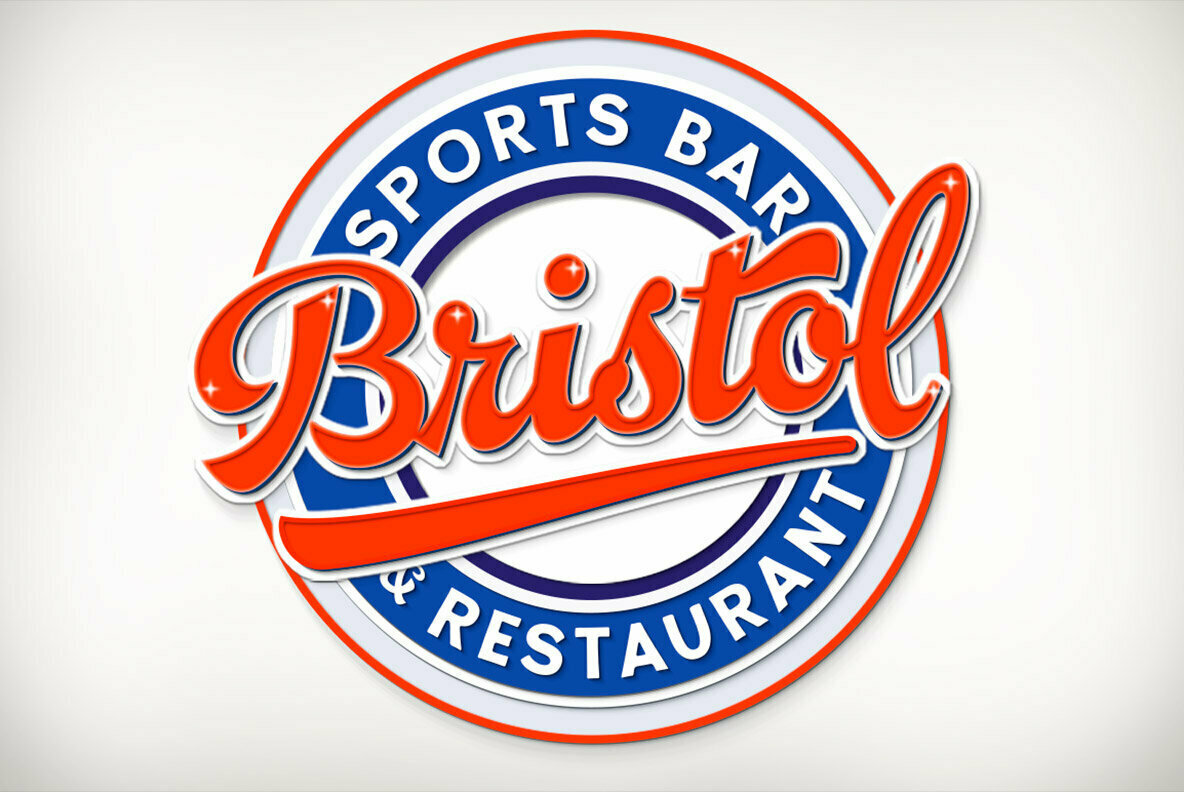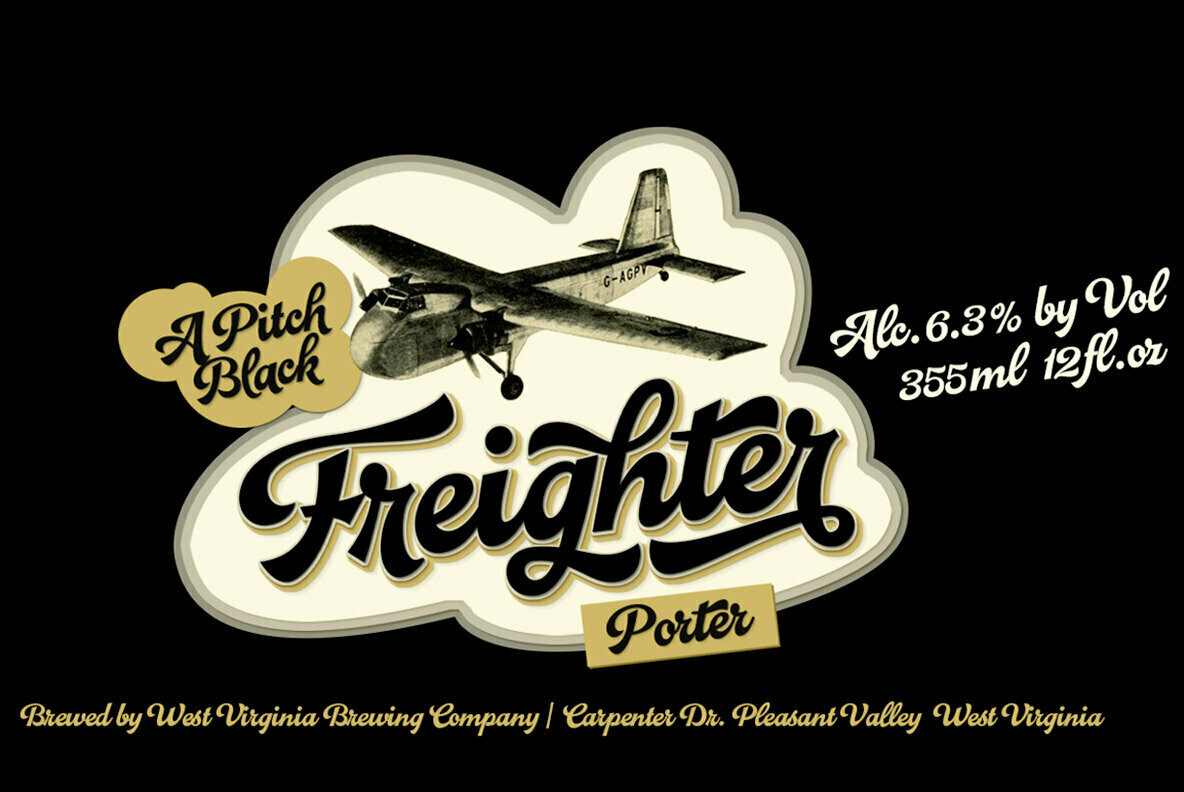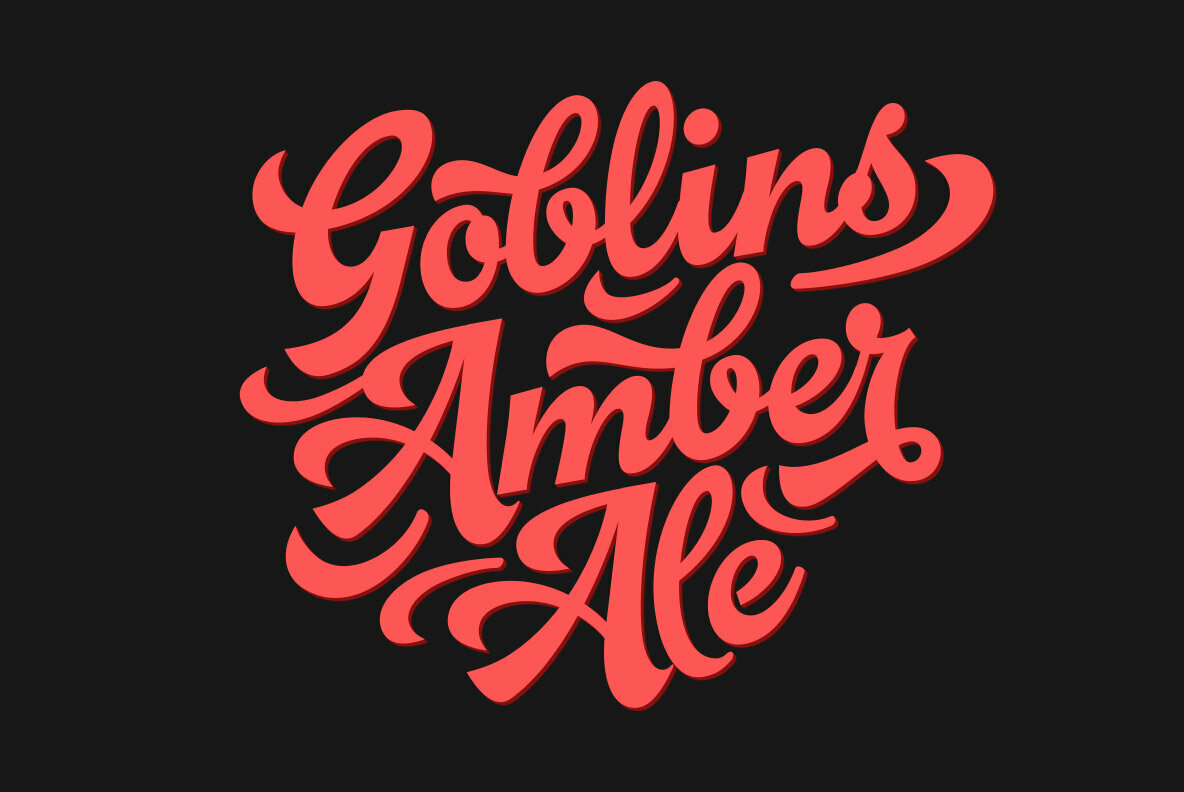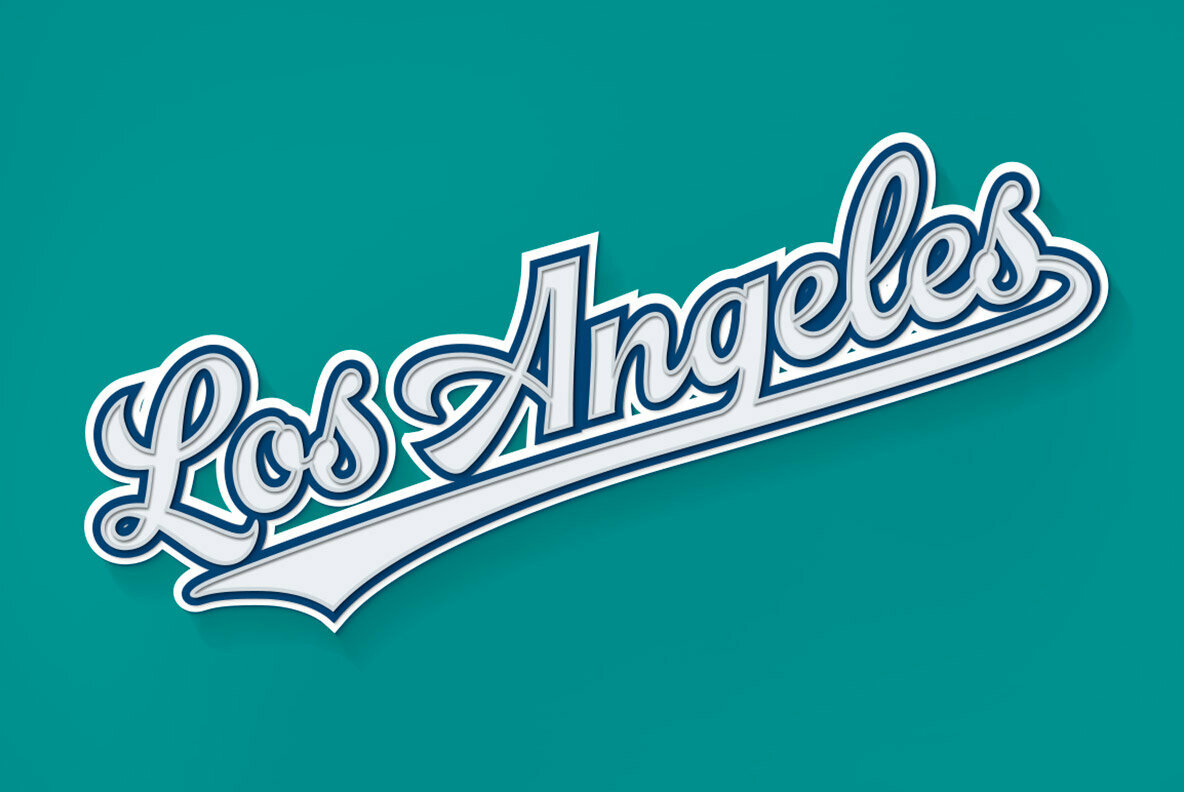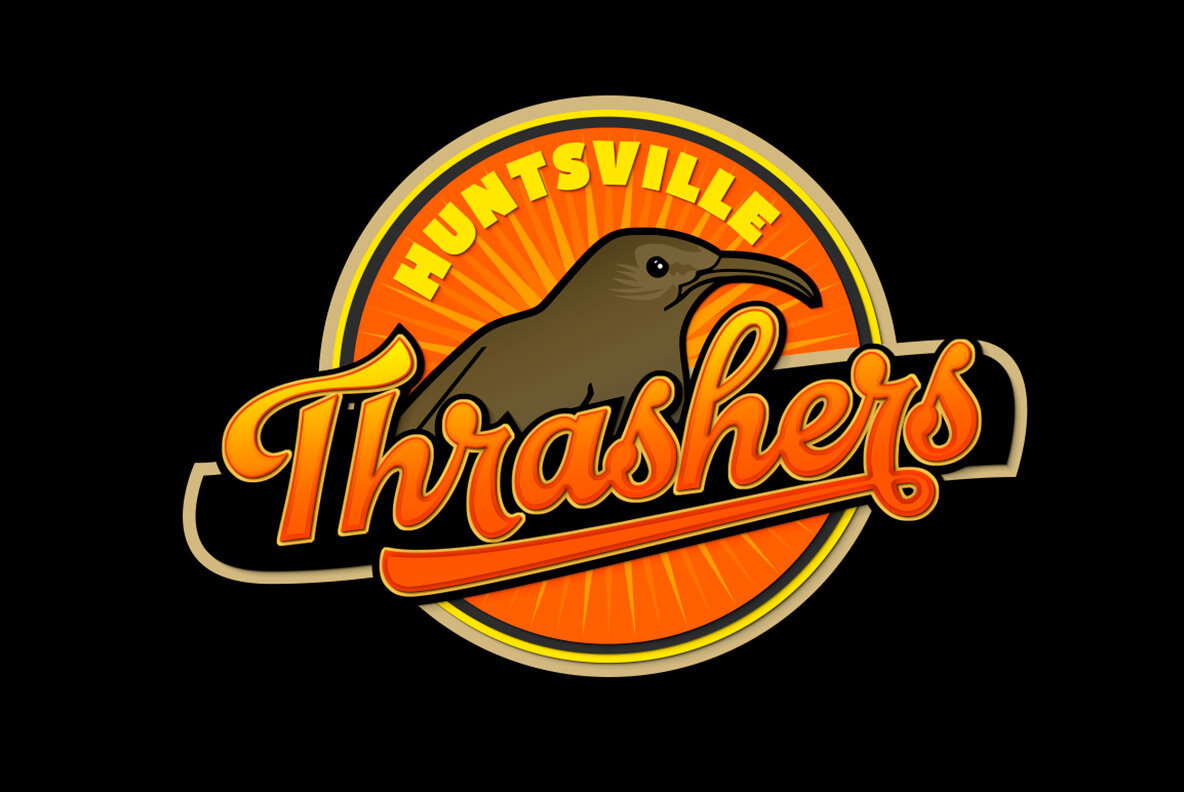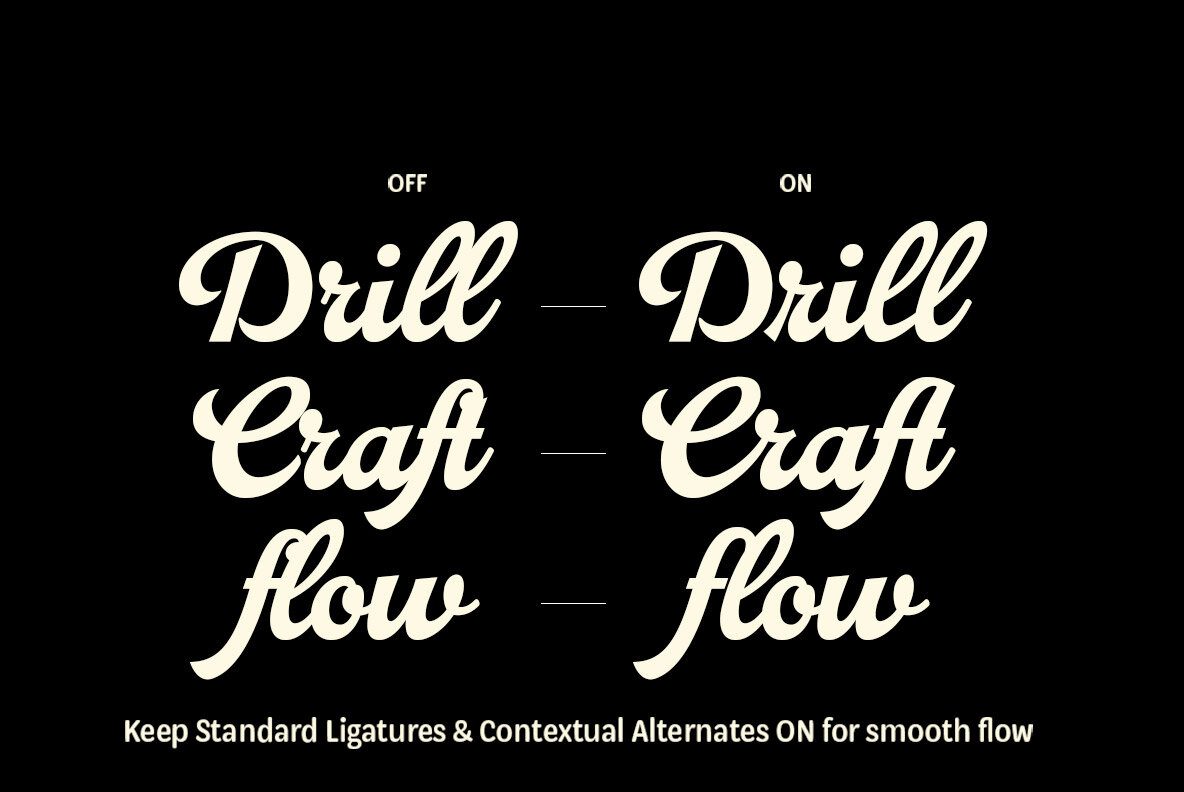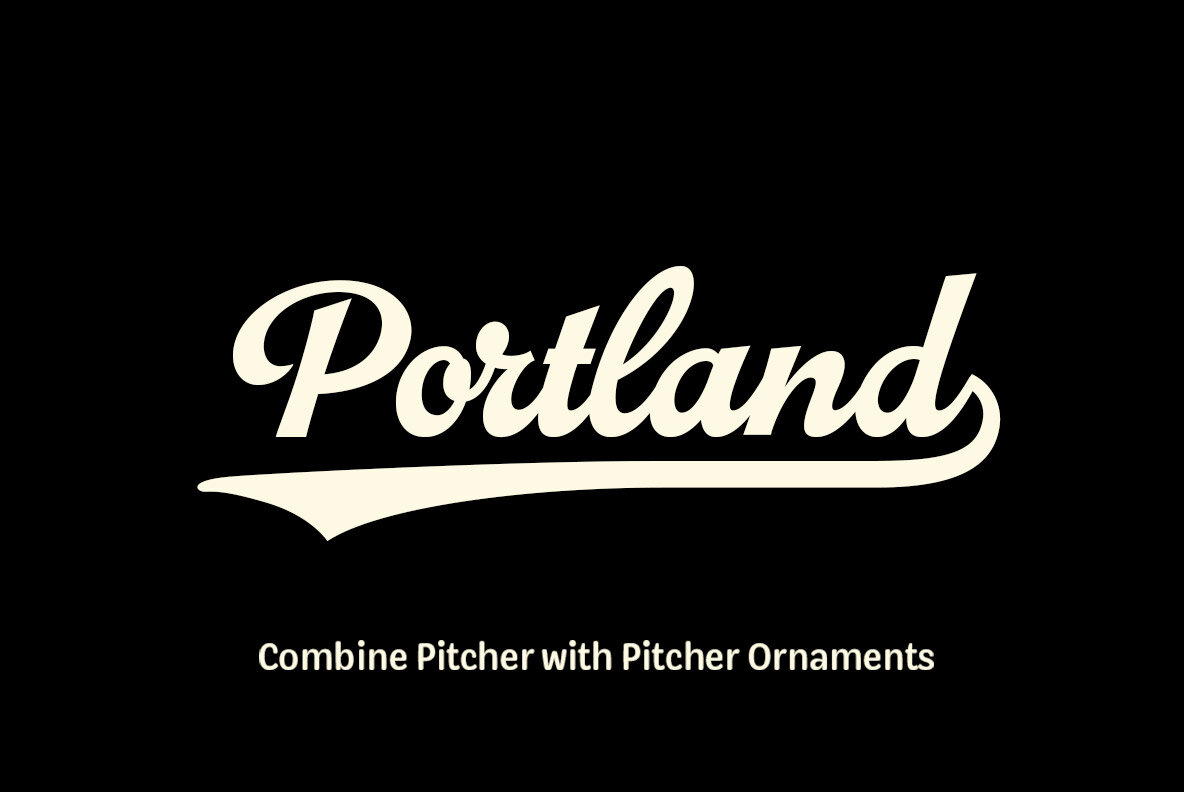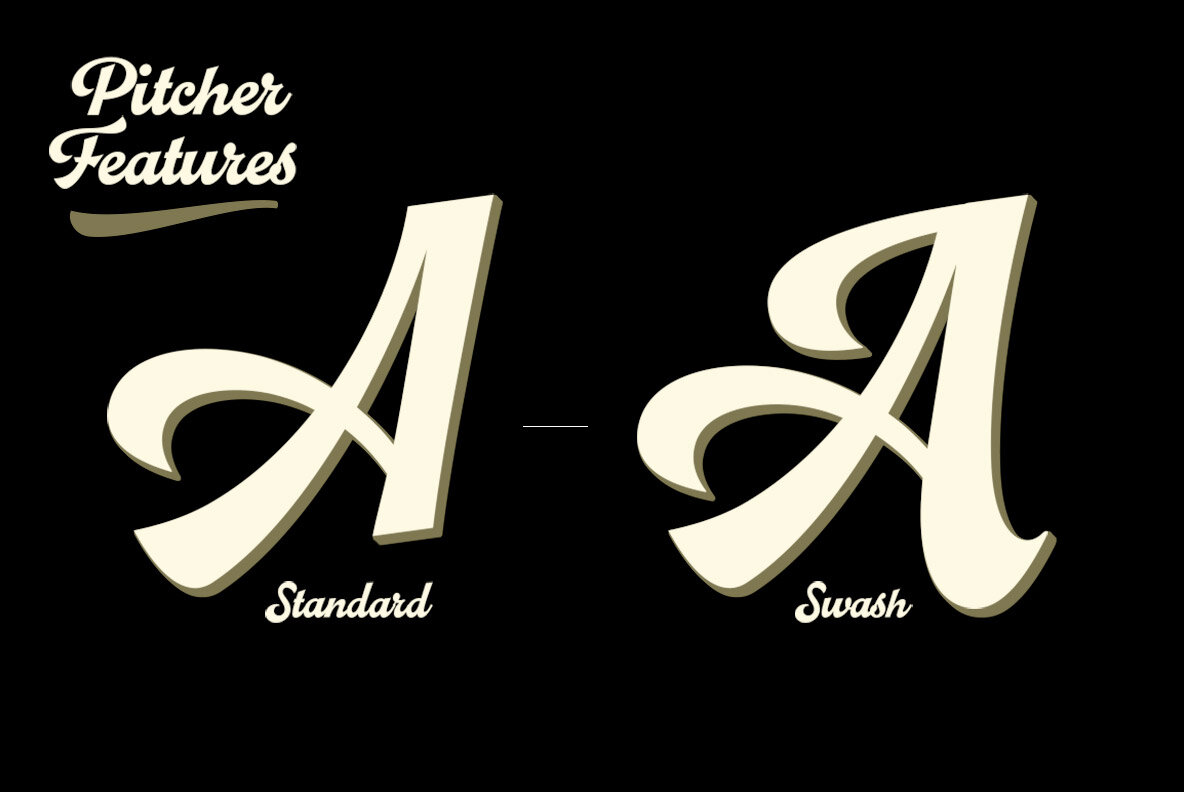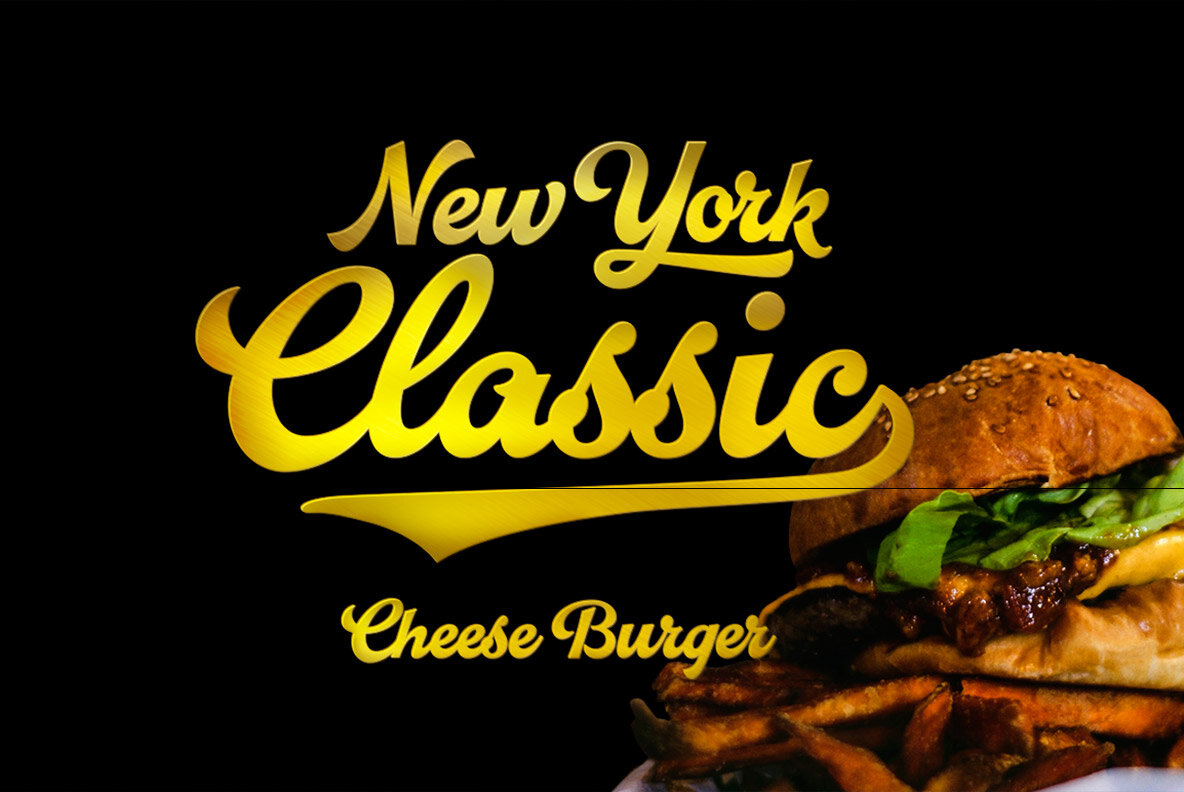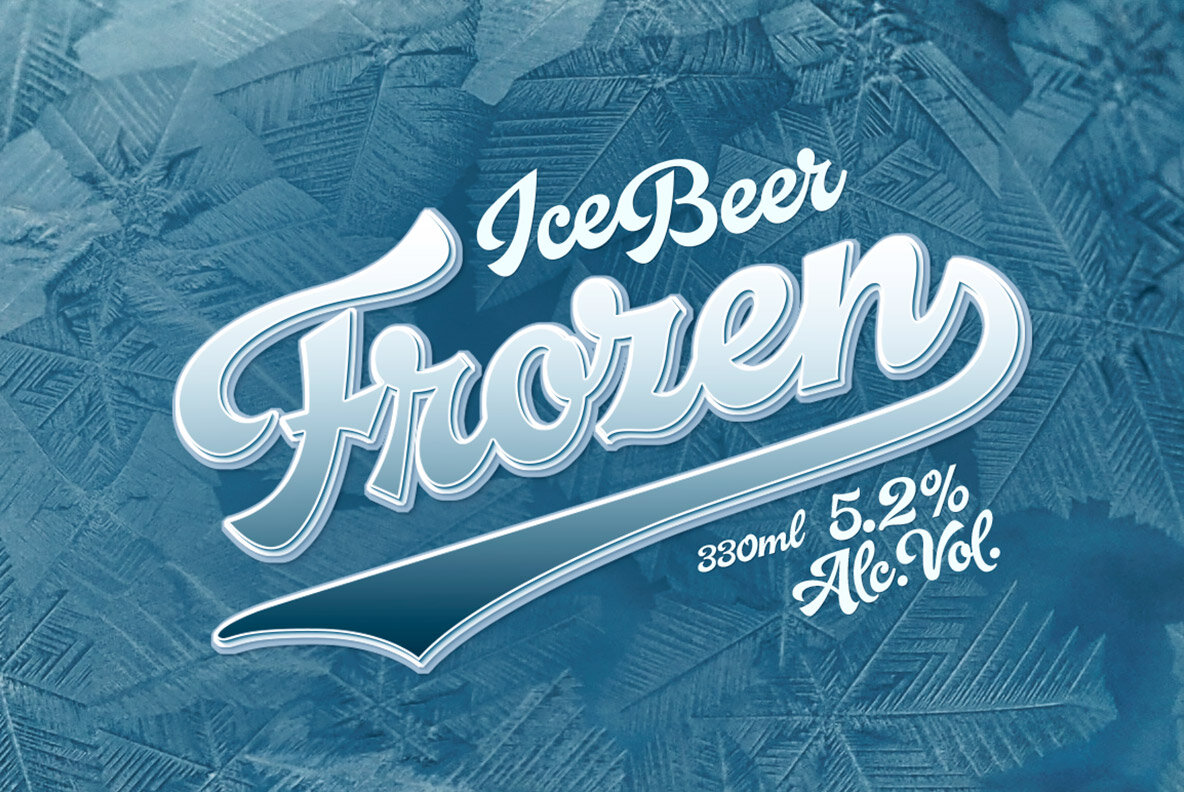
Pitcher 1
Pitcher is a bold brush with roots in 1940s and 1950s Americana. Pitcher is great for sports team or bar logos, beer labels or anything where you need a strong sturdy script with lots of character.
Pitcher is equipped with several OpenType features - keep on Standard Ligatures and Contextual Alternates for smooth connections between letters. Try Swash or Titling Alternates when you need more customised headlines or when designing a logo and look for Glyph Palette for even more alternates.
Pitcher Printed is the same font with a worn-out texture and a bit softer corners.
Combine Pitcher Ornaments with the script to complete your designs!